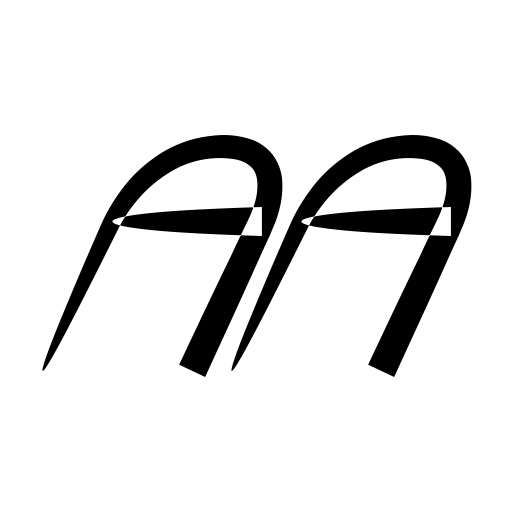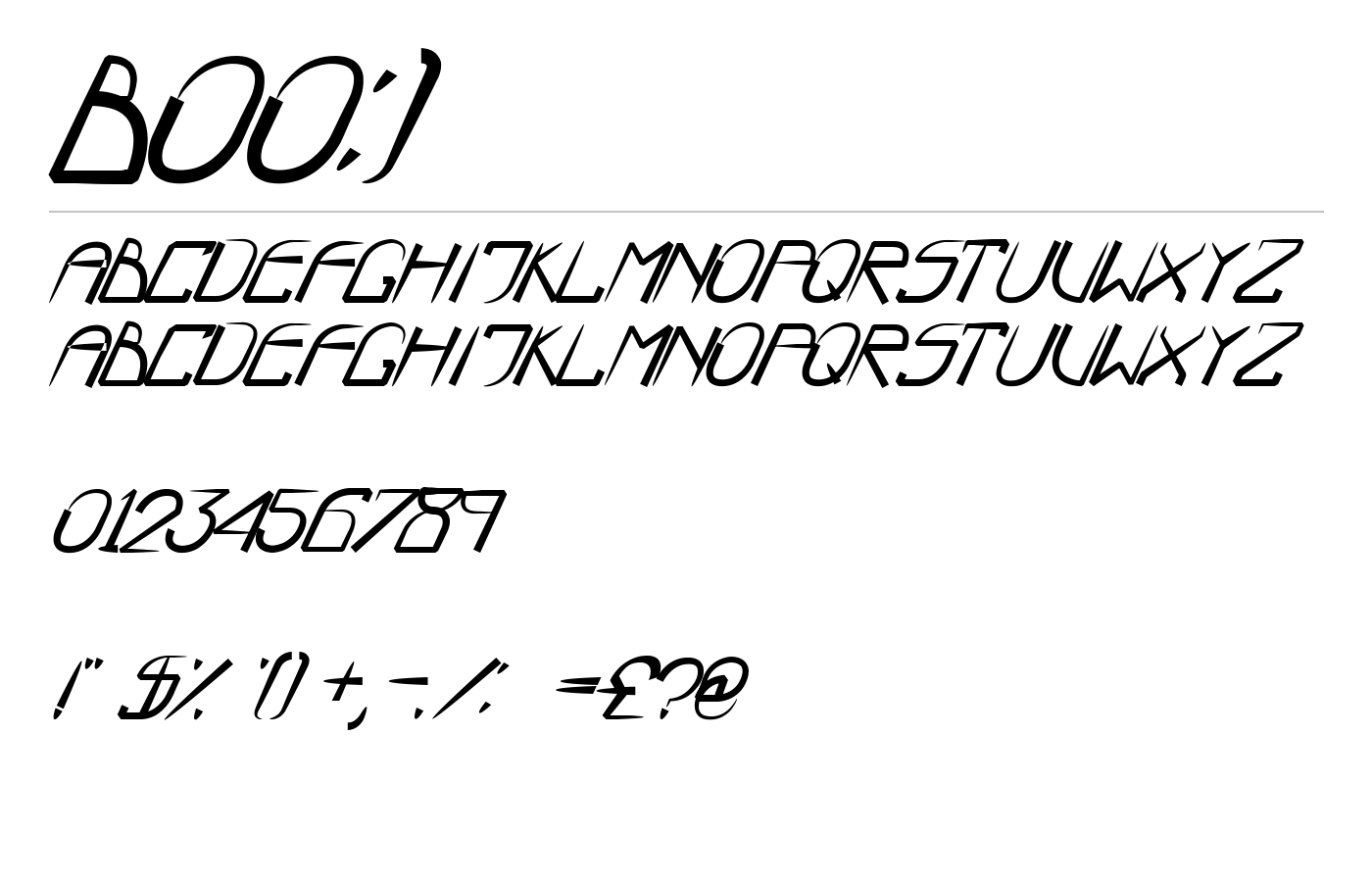
BOO:) is a dynamic, futuristic sans serif font with a sleek, angular style that leans forward, giving it a sense of motion and energy. Its narrow, italicized letterforms feature sharp, geometric strokes and a high contrast between thin and thick lines, making it ideal for cutting-edge designs, technology brands, and modern editorial headlines. This font’s distinctive personality adds a bold, innovative flair perfect for standout logos, posters, and digital media.
BOO:) Font
About BOO:) Font